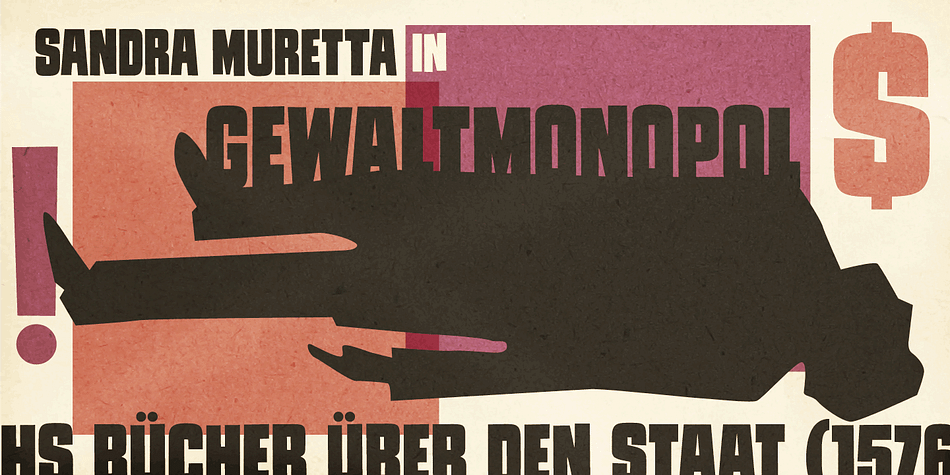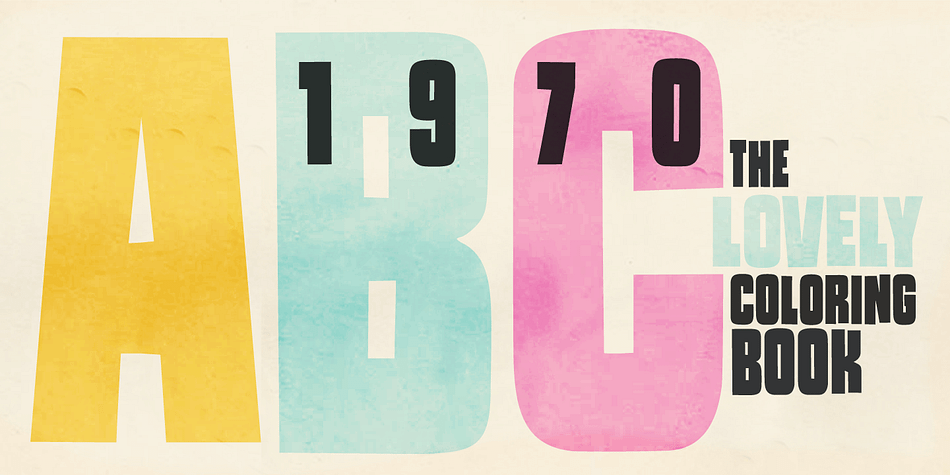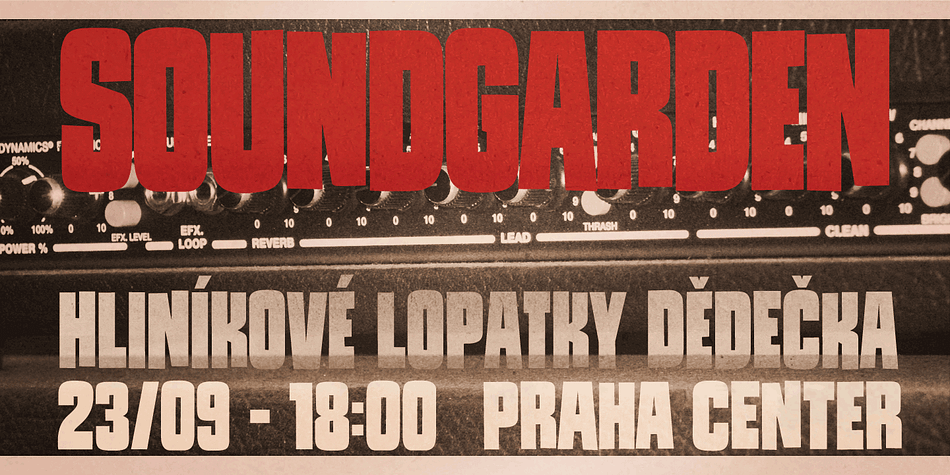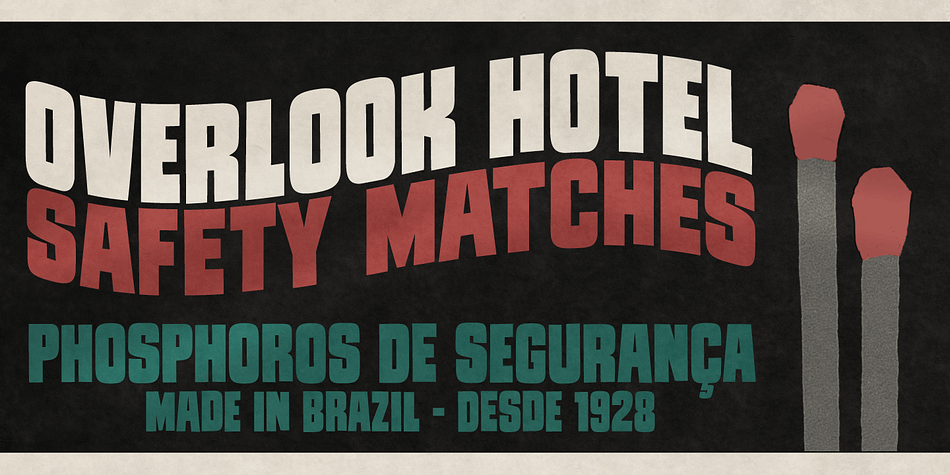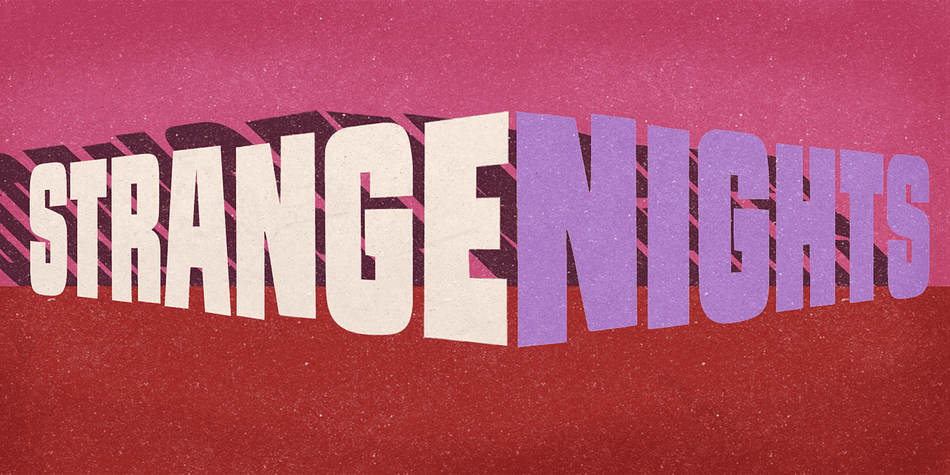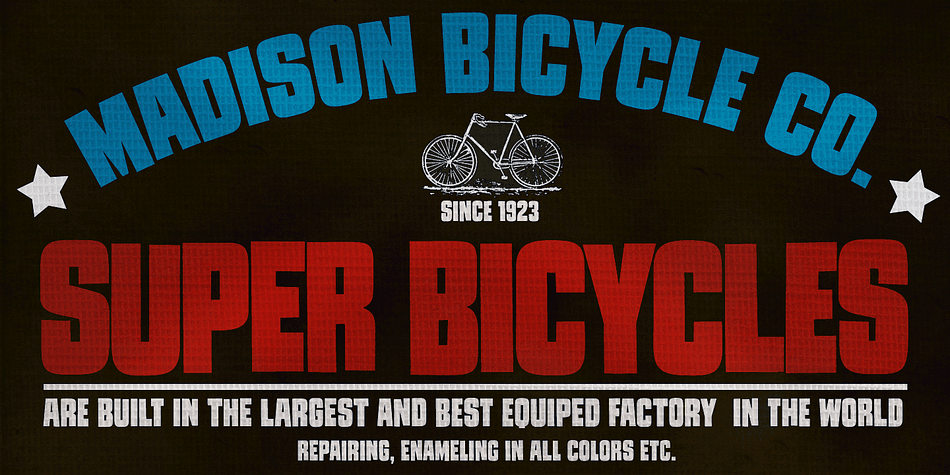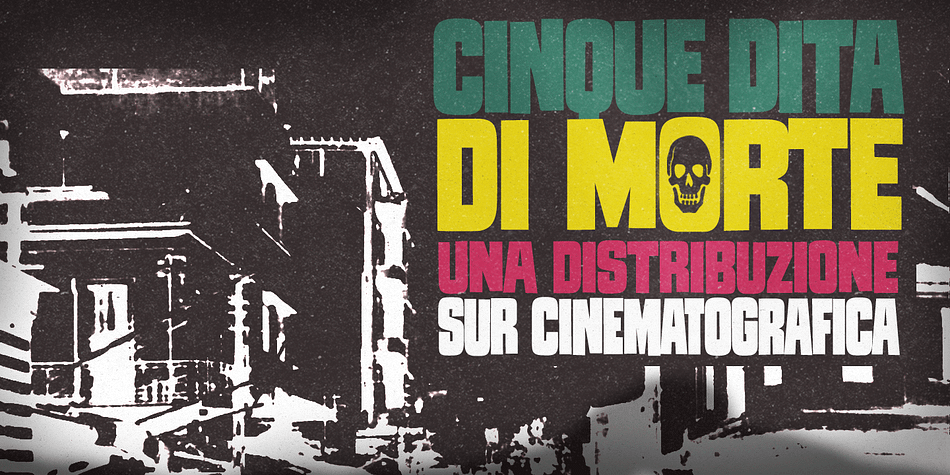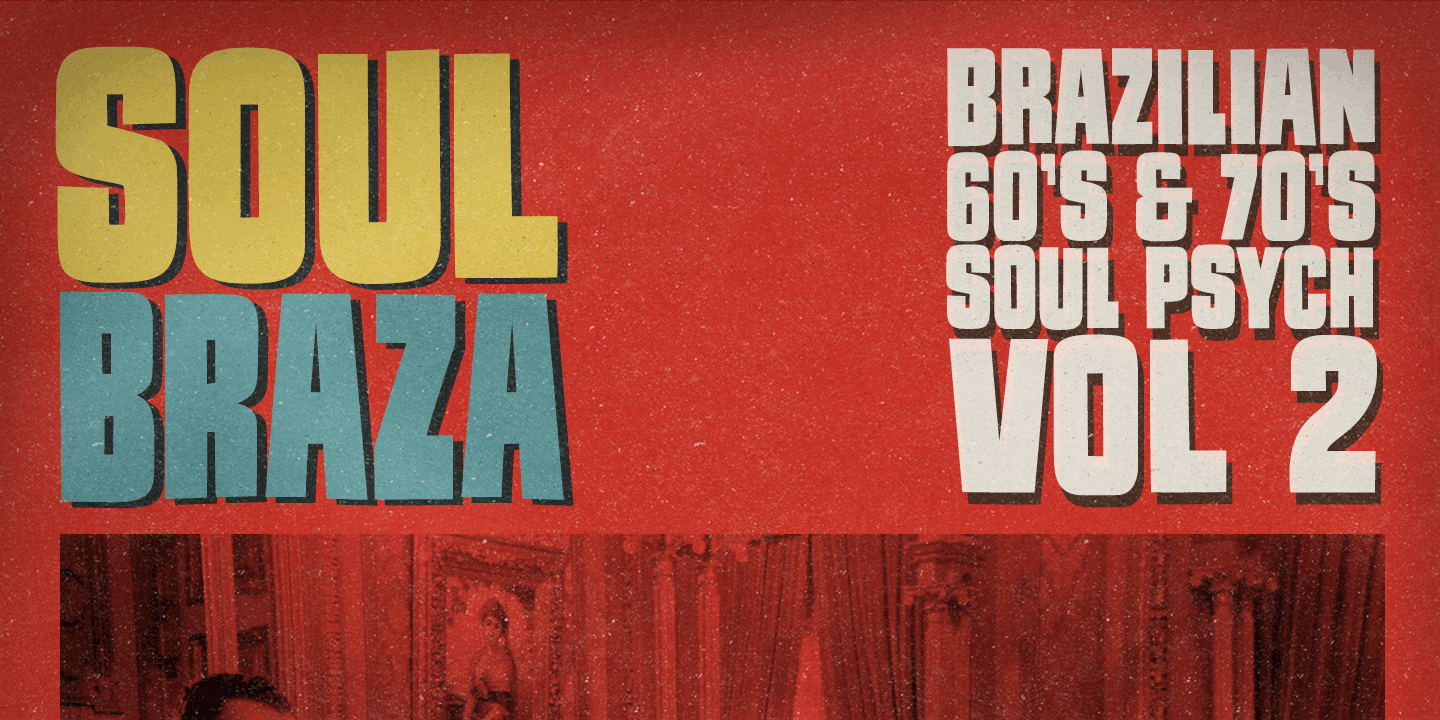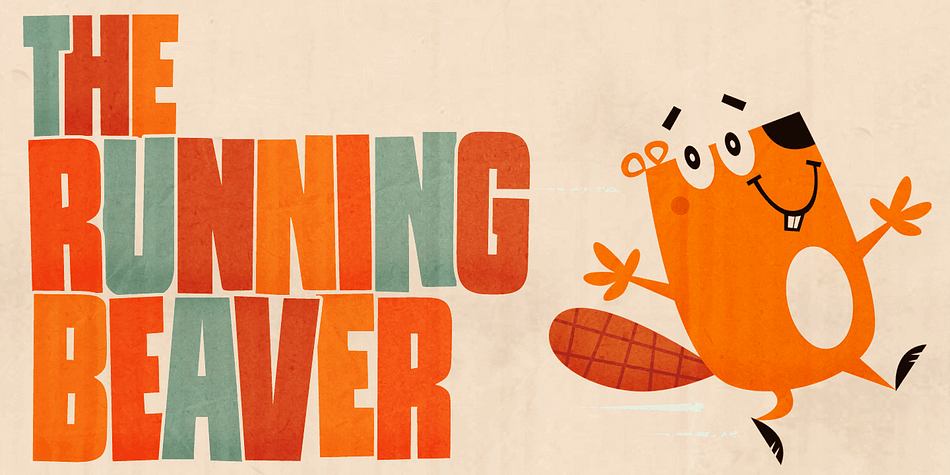
Tremendous is a display font family. This typeface has three styles and was published by PintassilgoPrints.
Strong and somewhat rough but absolutely warm-hearted, this Tremendous family is quite versatile and will find the right tone to deliver your message in a nice way. It can be friendly, it can speak out loud, it can be almost serious. It just cannot go unnoticed!
Each font weight brings 2 slightly different options for each letter , which is cool for a more uneven look. Pick your choices through the keyboard or just turn on the OpenType ‘contextual alternates’ feature to instantly cycle these alternates.
Intended for tremendous people.